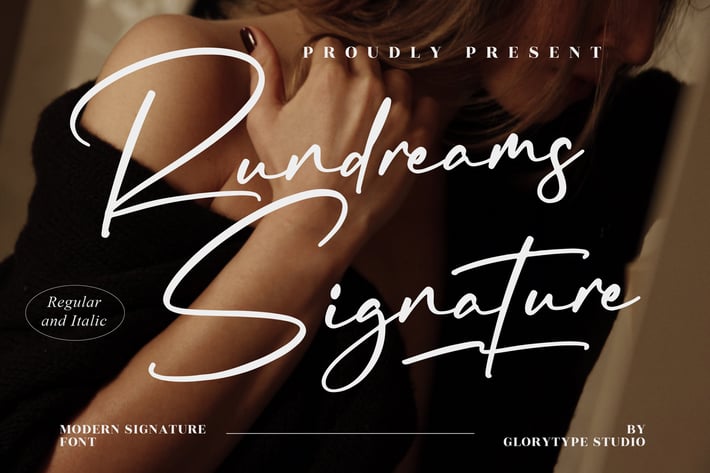
Rundreams Signature Font
Rundreams Signature Font is a modern and elegant signature typeface crafted to deliver a luxurious handwritten feel. With smooth strokes, graceful curves, and natural flow, this font is perfect for designs that need a personal, refined, and expressive touch.
Modern signature style with fluid, handwritten strokes
Includes Regular & Italic styles for flexible typography
Elegant swashes and smooth connections for a premium look
High readability for logos, headlines, and short text
Branding, logos, and personal signatures
Wedding invitations and stationery
Social media posts and aesthetic quotes
Fashion, beauty, and lifestyle branding
Business cards and personal identity designs
Posters, banners, and promotional materials
Soft, elegant, and timeless — Rundreams Signature Font brings emotion and sophistication to every word.*